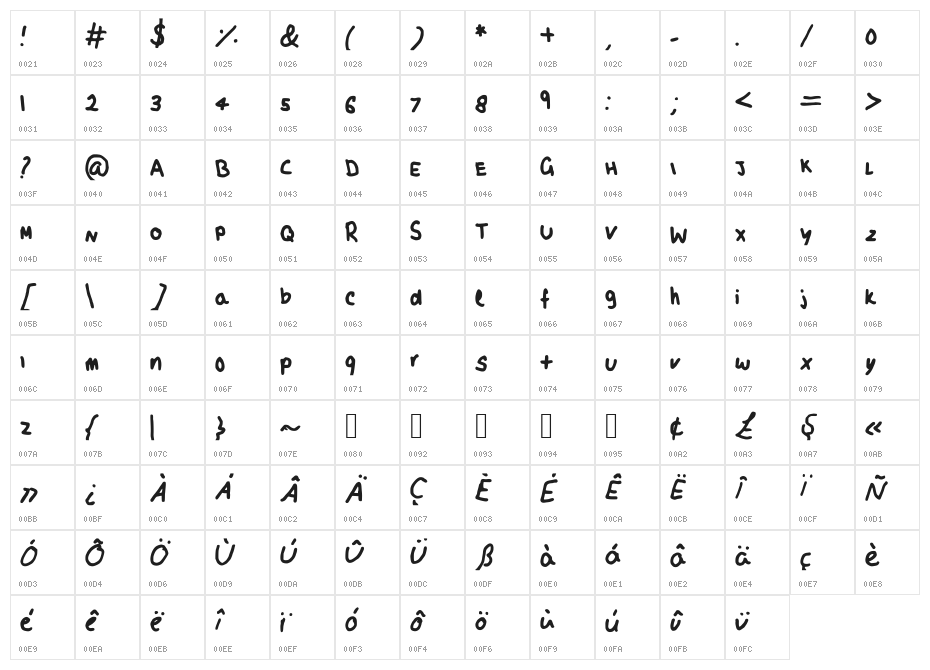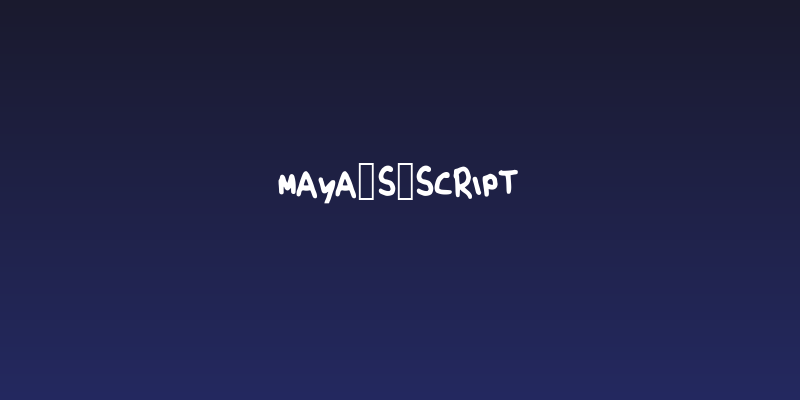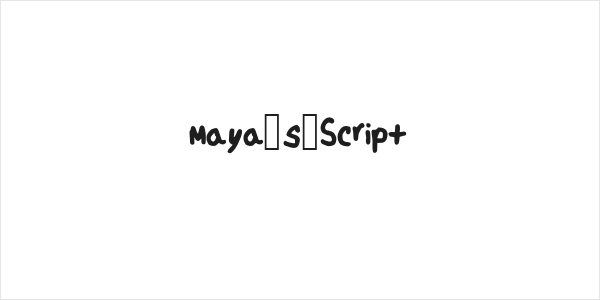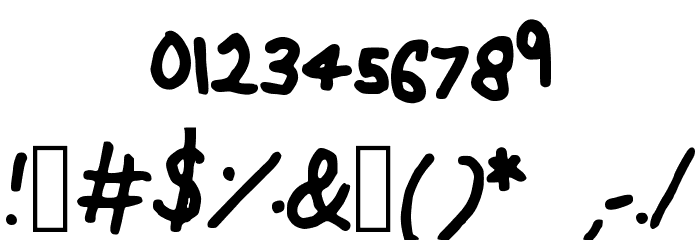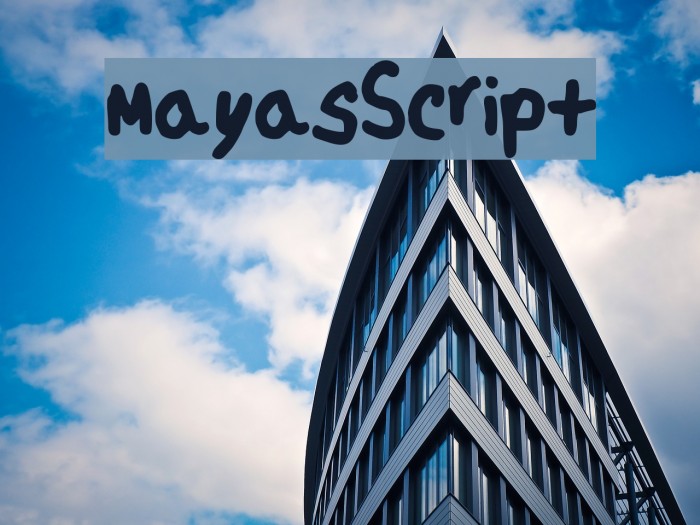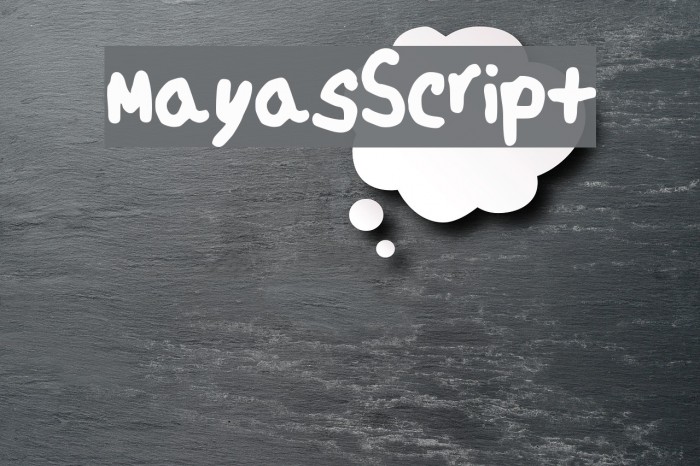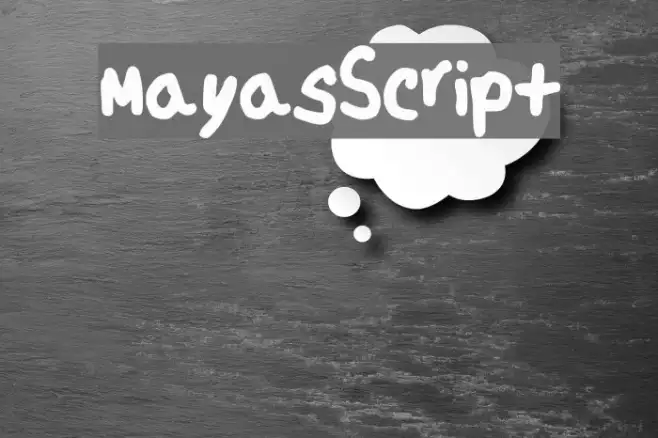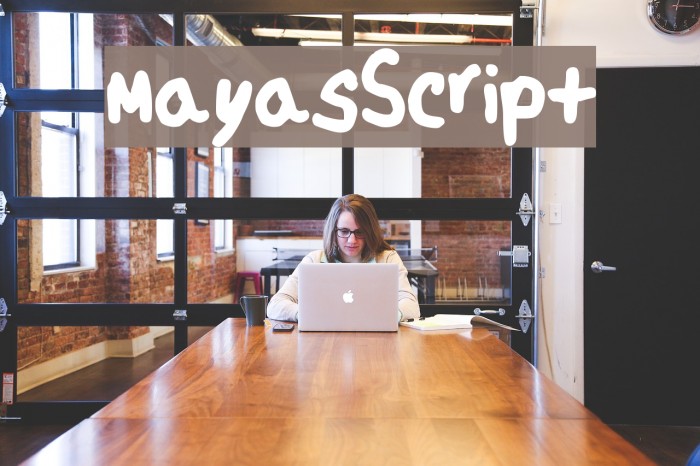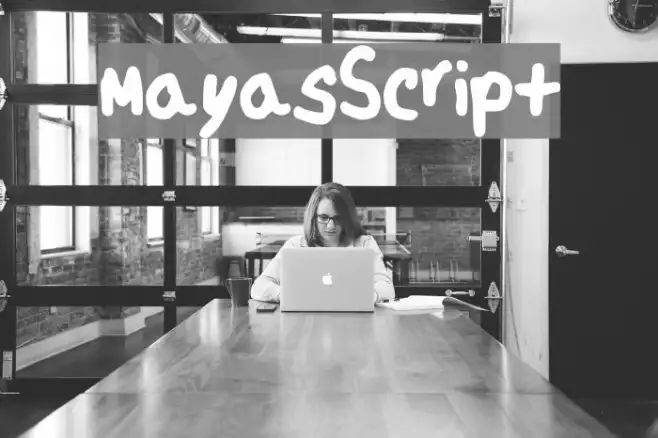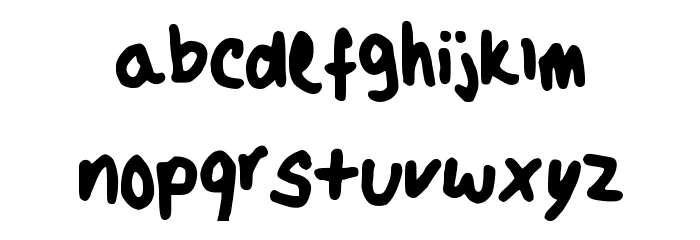
Maya_s_Script Font
Maya_s_Script Description
This playful and informal font features a handwritten style with a casual and friendly appearance. The characters are slightly irregular, giving it a personal touch that mimics natural handwriting. The strokes are bold and rounded, providing a sense of warmth and approachability. The uppercase and lowercase letters maintain a consistent style, with a slight slant that adds to its dynamic feel. The numbers and special characters are designed to match the overall aesthetic, ensuring a cohesive look across all elements.
| Proposed Projects | Ideal for greeting cards, children's books, informal invitations, and playful branding projects. |